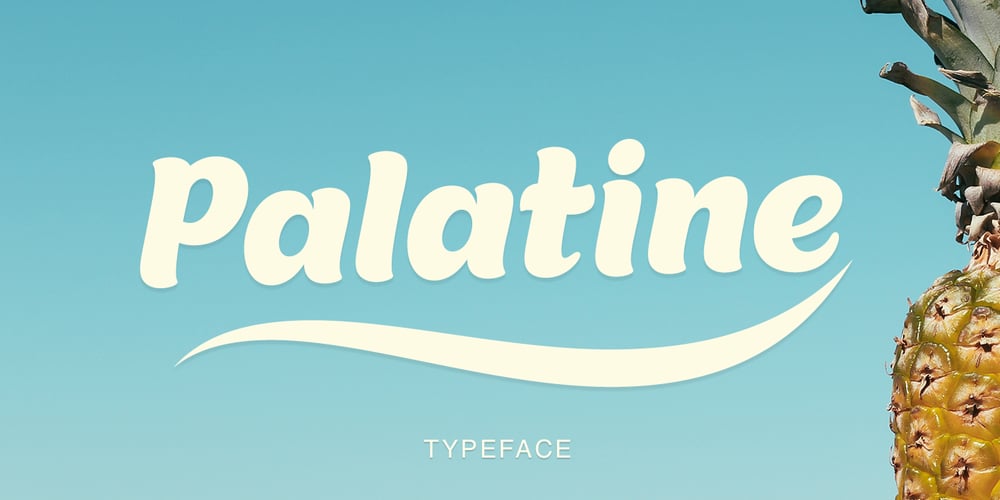
Palatine Font Family was designed by Pavel Larin and published by Larin Type Co. Palatine contains 1 styles and family package options. Palatine – this bold display typeface is a stylish and original, multipurpose font in a modern style with many alternatives, ligatures and swash that are very attractive, with their help you can make your project unique. And also use the main set to highlight exactly what you need.